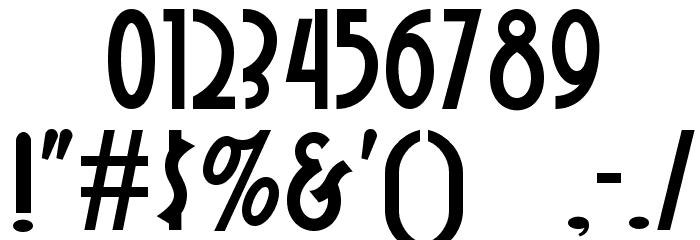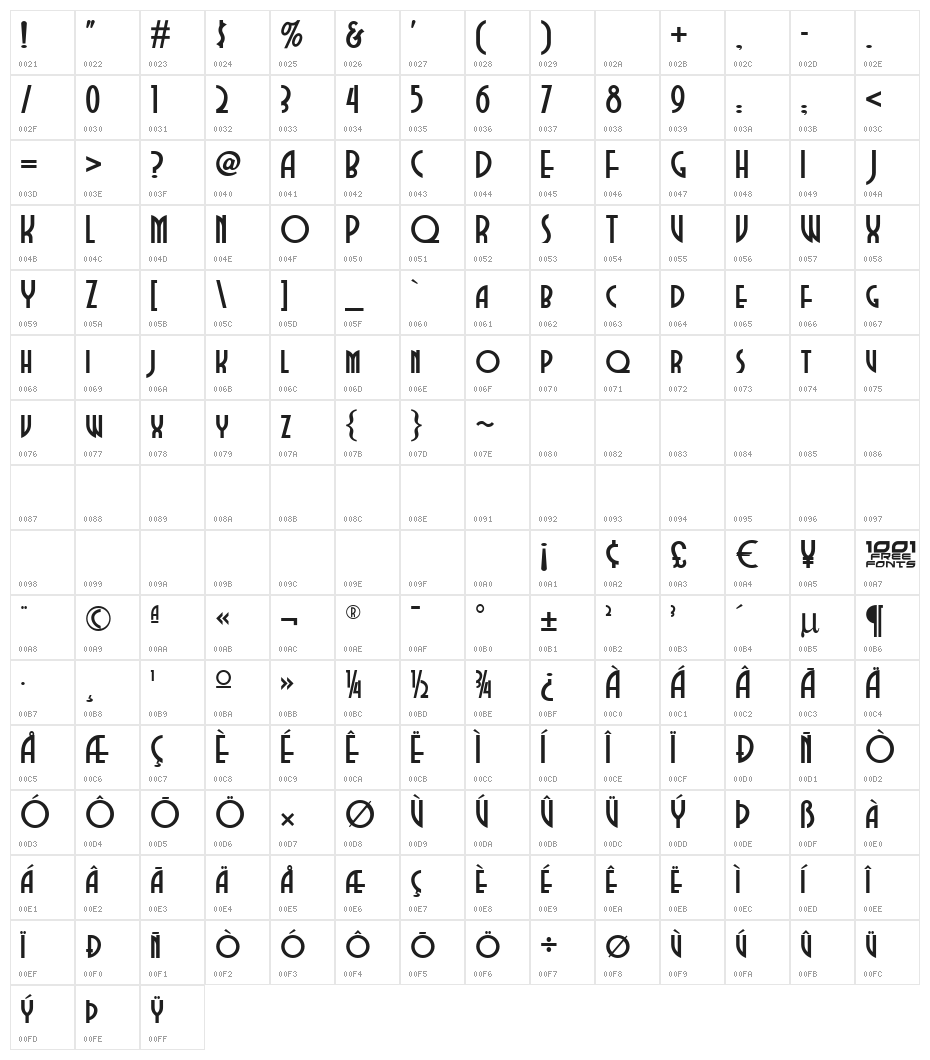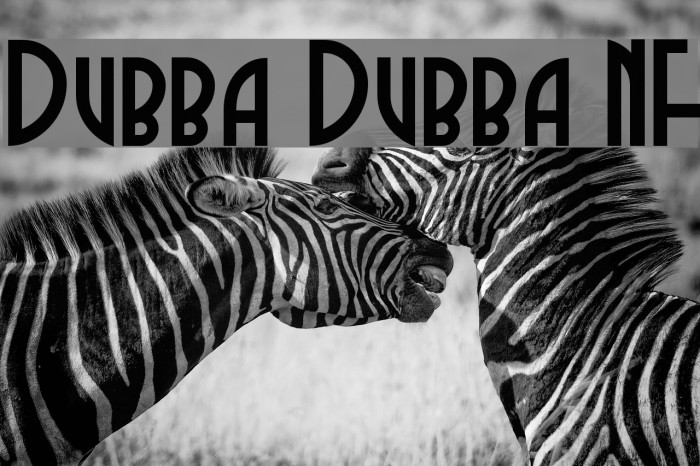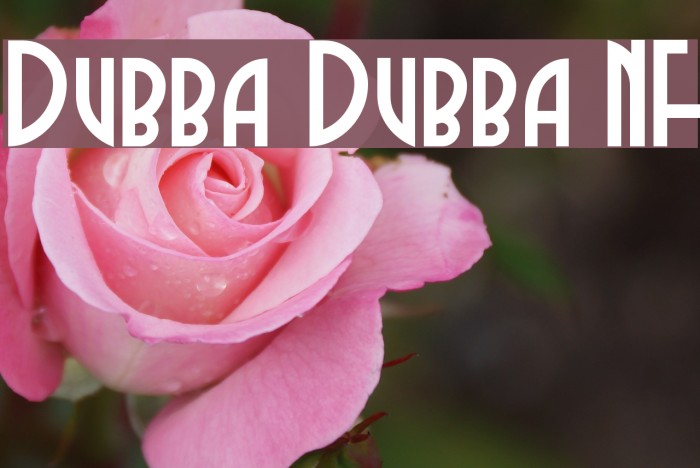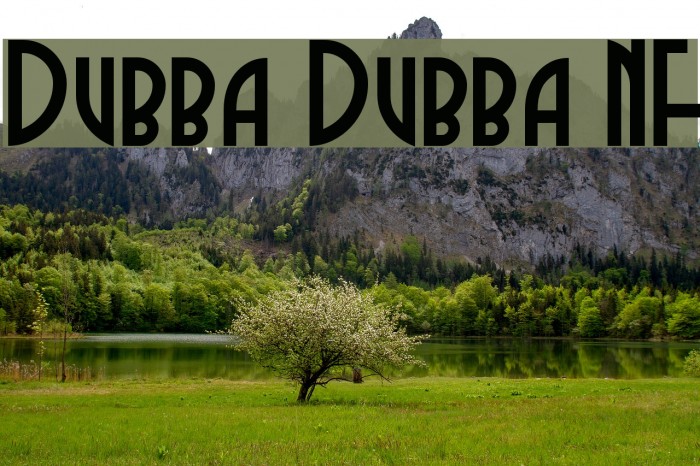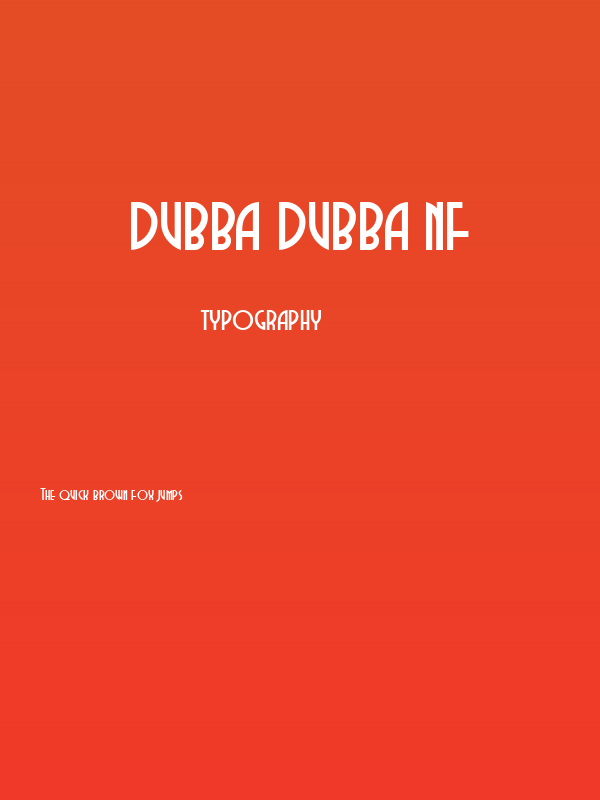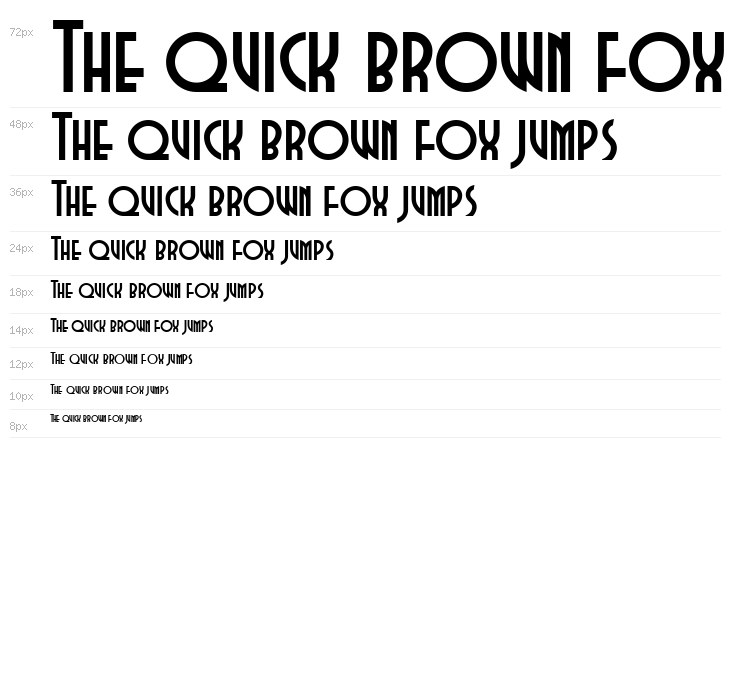
Dubba Dubba NF Font
Dubba Dubba NF Description
This font features a bold and geometric style with a distinct Art Deco influence. The characters are tall and narrow, with sharp angles and clean lines that create a sense of elegance and sophistication. The uppercase letters are particularly striking, with unique shapes that make them stand out. The numbers and special characters maintain the same geometric aesthetic, ensuring consistency throughout the typeface. This font is ideal for projects that require a touch of vintage glamour and modern flair.
| Proposed Projects | Ideal for branding, posters, and headlines that require a vintage yet modern aesthetic. |